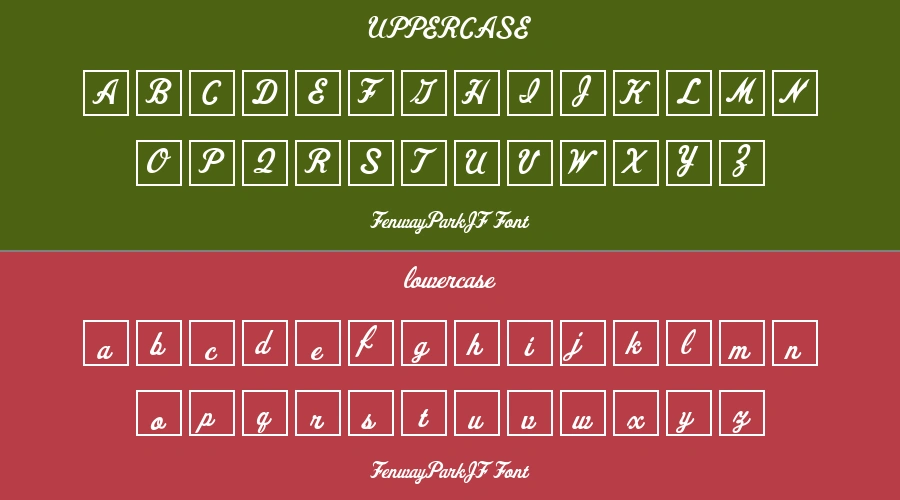
About FenwayParkJF Font
FenwayParkJF Font represents a sophisticated approach to type design, balancing balanced tension with expressiveness. Perfect for legal documents, this font family showcases impressive accuracy and design heritage throughout its character set. Designers appreciate its versatility and reliability.
Designers will appreciate nuanced touches including fluid motion and stylistic sets, adding sophistication to any project. These features become apparent in display applications, where math typesetting matters most. The careful treatment of corner treatment and technical tradition ensures optimal performance.